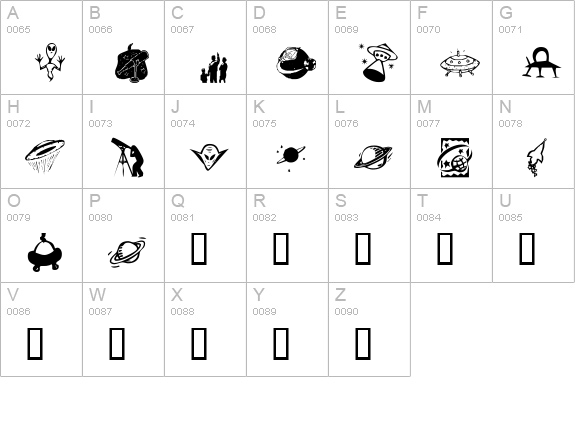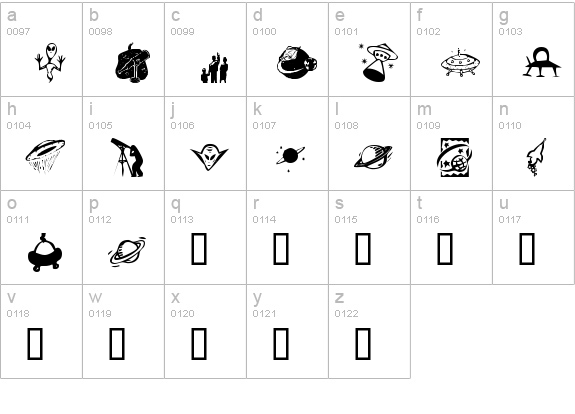
KR Out Of This World Font Details
The KR Out Of This World font is a captivating and futuristic typeface that will transport your design projects to another dimension. With its sleek lines and space-inspired design, this font is perfect for creating eye-catching headers, titles, and logos that truly stand out. What makes this font even more amazing is that it is completely free to download at FontsMarket.com. Whether you are working on a sci-fi themed project, a futuristic website, or simply want to add a touch of otherworldly charm to your designs, the KR Out Of This World font is a must-have in your font collection. Download it today and let your creativity soar to new heights!